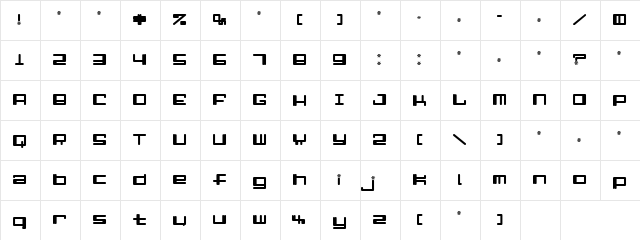
Beep Letter Regular Font Preview
Beep Letter Regular
Design Context for Beep Letter Typeface
Beep Letter takes a measured approach to typography — its balanced proportions and neutral character make it a reliable workhorse for both digital and print work.